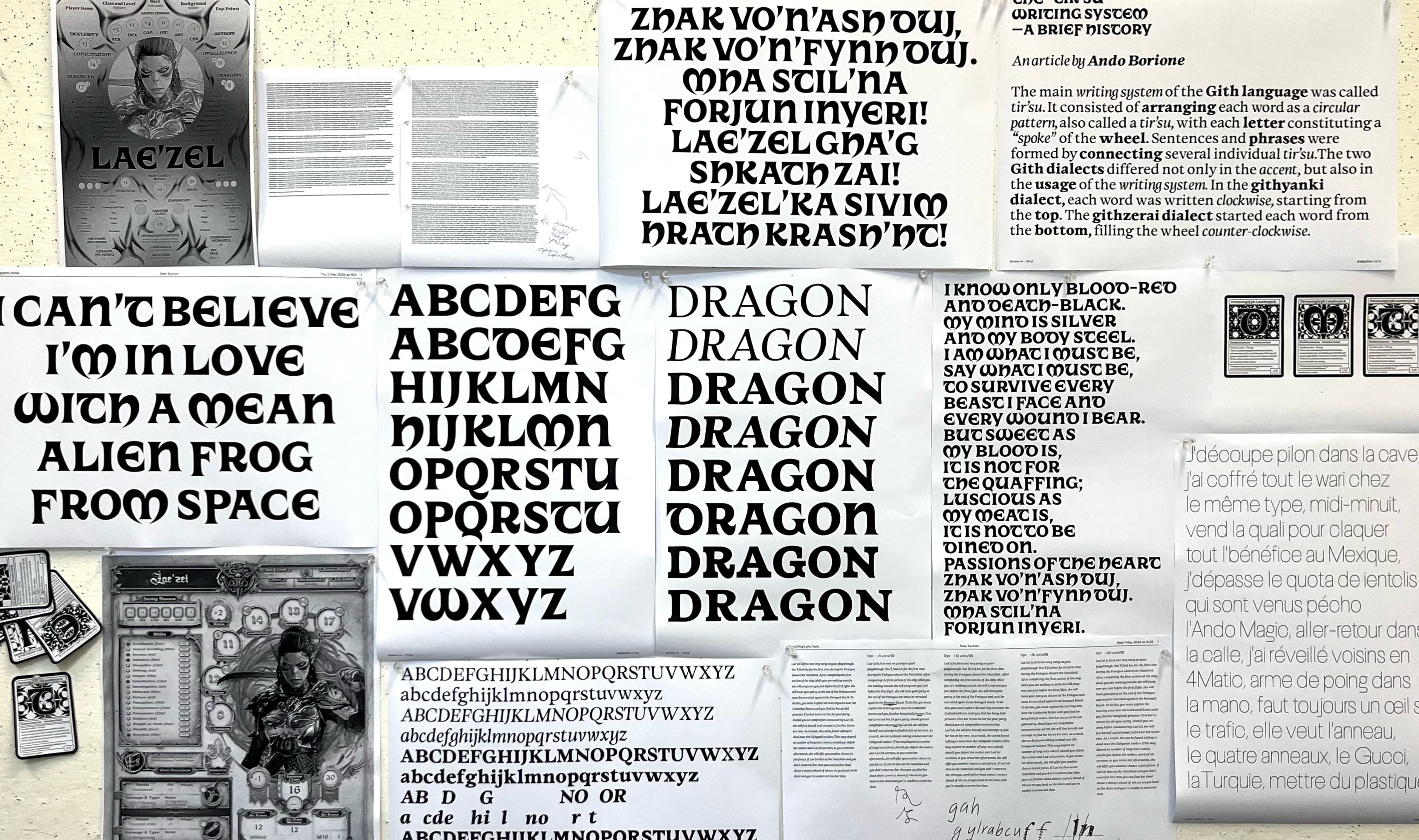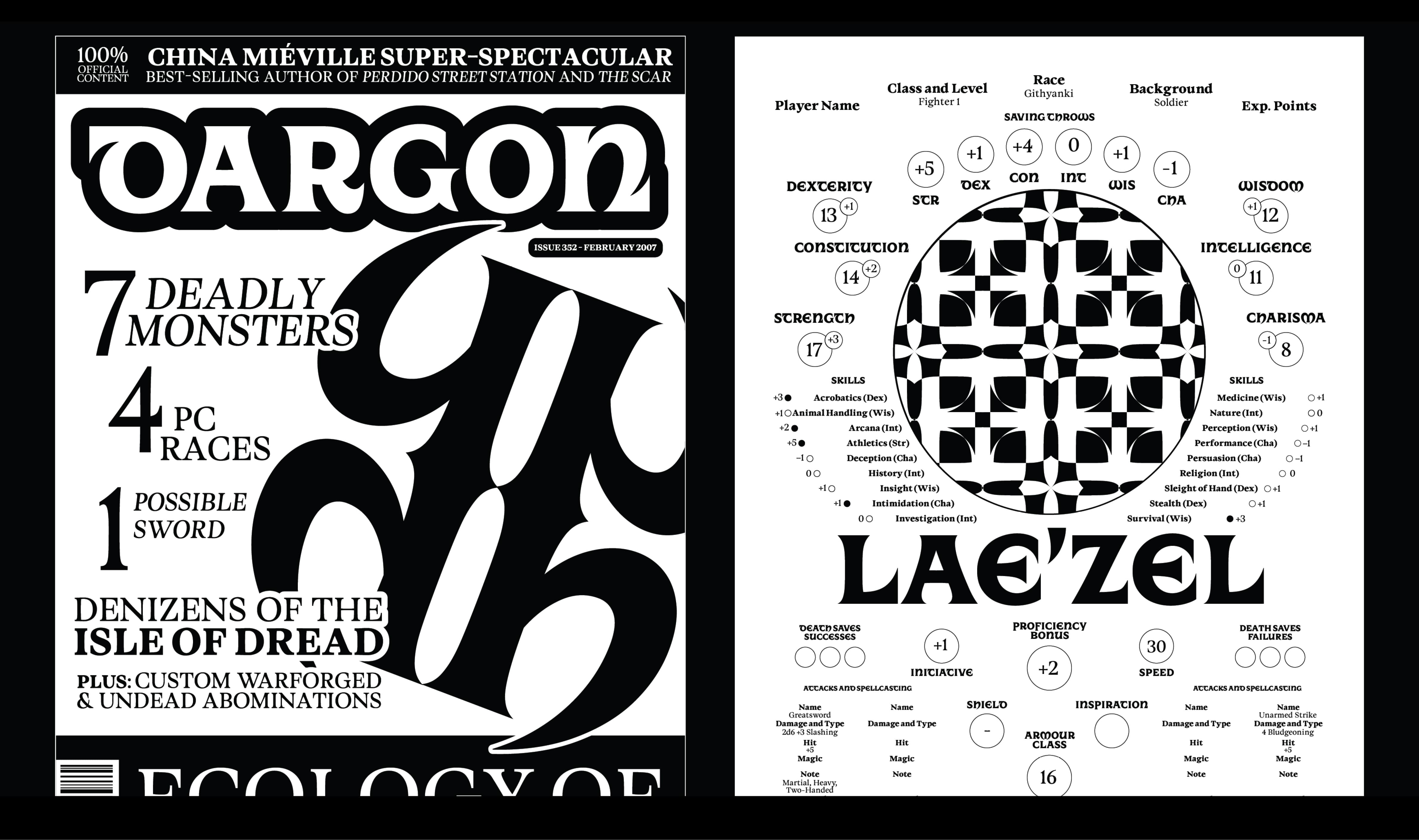
Type is magic: Interview
French native Anne-Dauphine Borione, Ando for short, has been in the design world for about a decade now. Though mostly focused on graphic design and display typefaces, she won the Gerard Unger Scholarship in 2024 for her richly woven Dargon family, which includes text and display styles. Dargon stimulates our imagination and offers a wide range of future applications, from video games, board games, and trading cards to film titles, album covers, brands, and apps.
What has Ando learned this past year working with TypeTogether and what plans does she have for the future? Check out the interview linked below to get some behind-the-scenes info and a look at Dargon’s fantastical evolution.